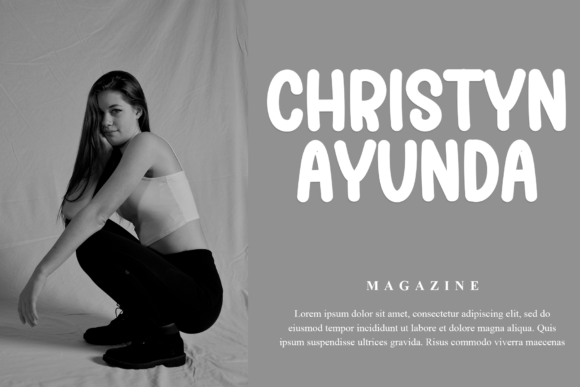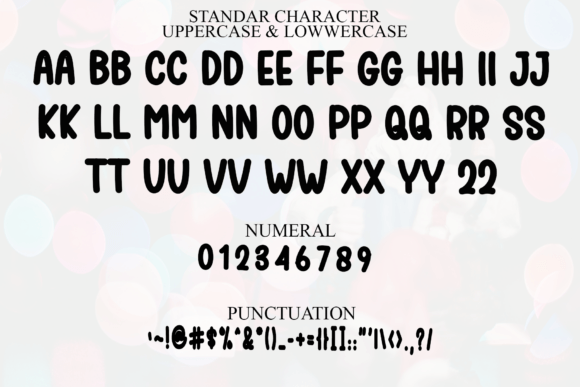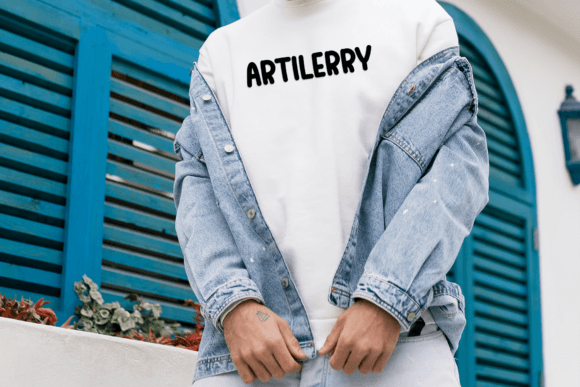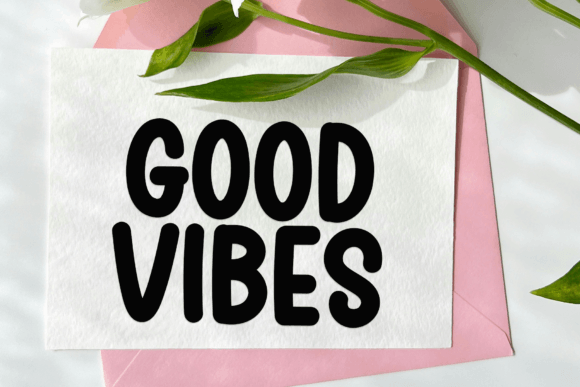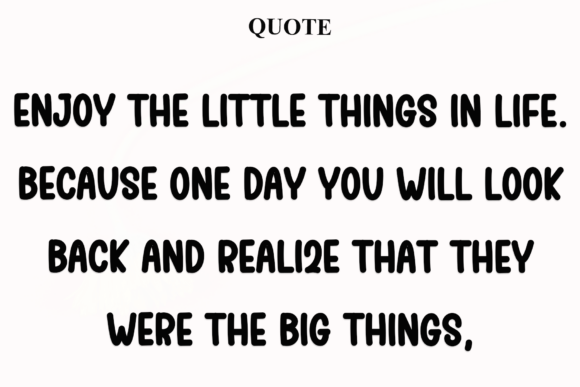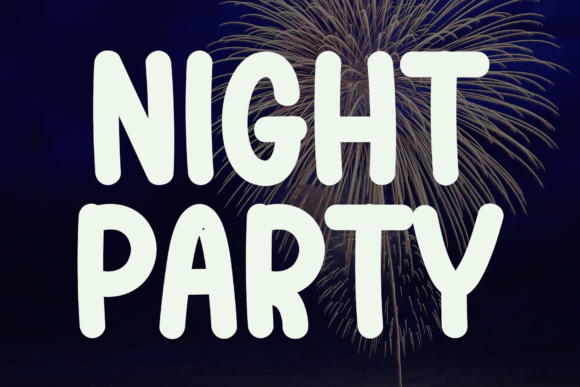
Introducing Firework Font: The Ultimate Holiday Typeface
The holiday season is upon us, and what better way to get into the festive spirit than with a font that’s as merry and bright as the fireworks that light up the night sky? Look no further than Firework Font, a decorative typeface that’s sure to add a touch of enchantment to your designs.
Firework Font is a carefully crafted typeface that’s designed to capture the essence of the holiday season. With its whimsical flair and decorative elements, this font is perfect for adding a touch of magic to your designs. Whether you’re creating greeting cards, gift tags, or holiday-themed projects, Firework Font is sure to bring a cheerful and nostalgic ambiance to your words.
Firework Font is a versatile typeface that’s perfect for designers and crafters alike. Its decorative elements and whimsical flair make it ideal for a wide range of projects, from holiday-themed party invitations to festive social media graphics. Whether you’re a professional designer or a crafter looking to add a personal touch to your projects, Firework Font is sure to inspire your creativity.
What You Can Create with Firework Font
With Firework Font, the possibilities are endless. Here are just a few ideas to get you started:
- Greeting Cards: Create festive holiday greeting cards that are sure to delight your friends and family.
- Gift Tags: Add a personal touch to your gifts with custom gift tags that feature the whimsical charm of Firework Font.
- Holiday Party Invitations: Create eye-catching party invitations that set the tone for a fun and festive holiday celebration.
- Social Media Graphics: Add a touch of holiday cheer to your social media graphics with Firework Font’s decorative elements and whimsical flair.
Why Choose Firework Font?
So why choose Firework Font over other holiday-themed typefaces? Here are just a few reasons:
- Unique and Eye-Catching: Firework Font is a one-of-a-kind typeface that’s sure to stand out in a crowd.
- Highly Versatile: Firework Font can be used for a wide range of projects, from holiday-themed party invitations to festive social media graphics.